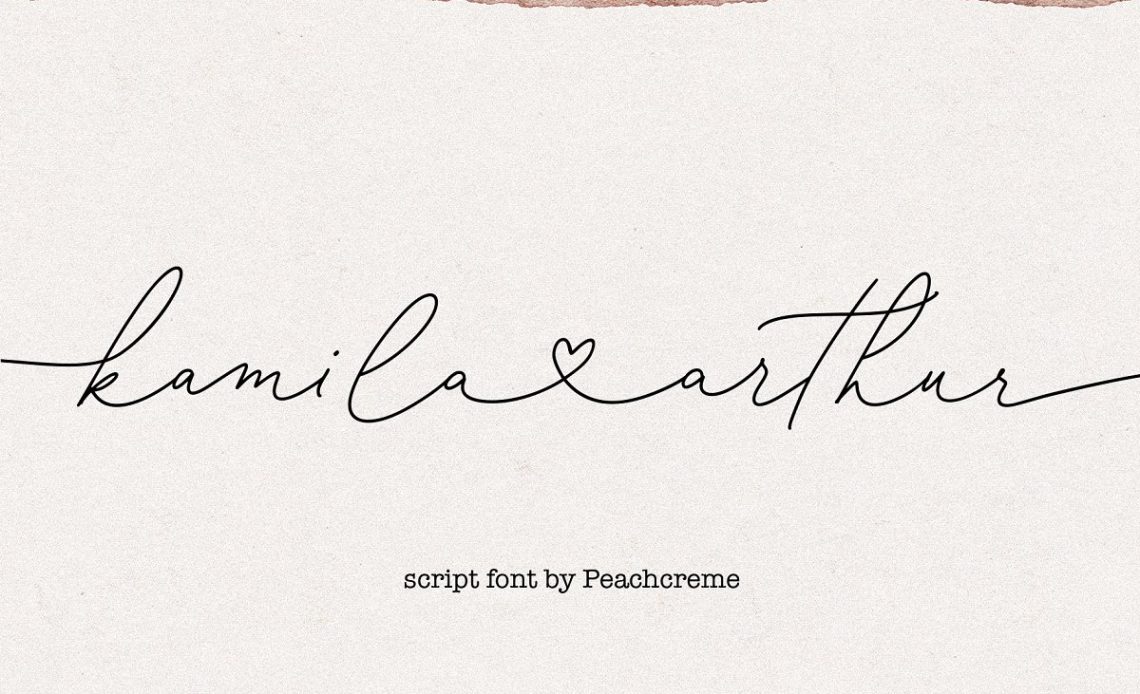
Welcome to PeachCreme's newest addition to our collection, the Kamila Arthur Heart Script Font! We're thrilled to introduce this lovely script font, perfect for those in search of the best font for clothing websites.
Created by our expert designers, Kamila Arthur was inspired by clean handwriting with a natural monoline flow. It features lovely beginning, ending, and connecting lowercase heart swashes, which are perfect for adding a touch of elegance and romance to your designs.
One of the unique features of Kamila Arthur is the heart glyphs that connect only lowercase letters, adding a playful and charming touch to your designs. This font family is perfect for minimalist wedding designs, creating a timeless and sophisticated look for your special day.
With Kamila Arthur, you can take your designs to the next level and create a lasting impression on your audience. The font's natural flow and elegance are sure to capture the hearts of your viewers, making it the perfect addition to any project.